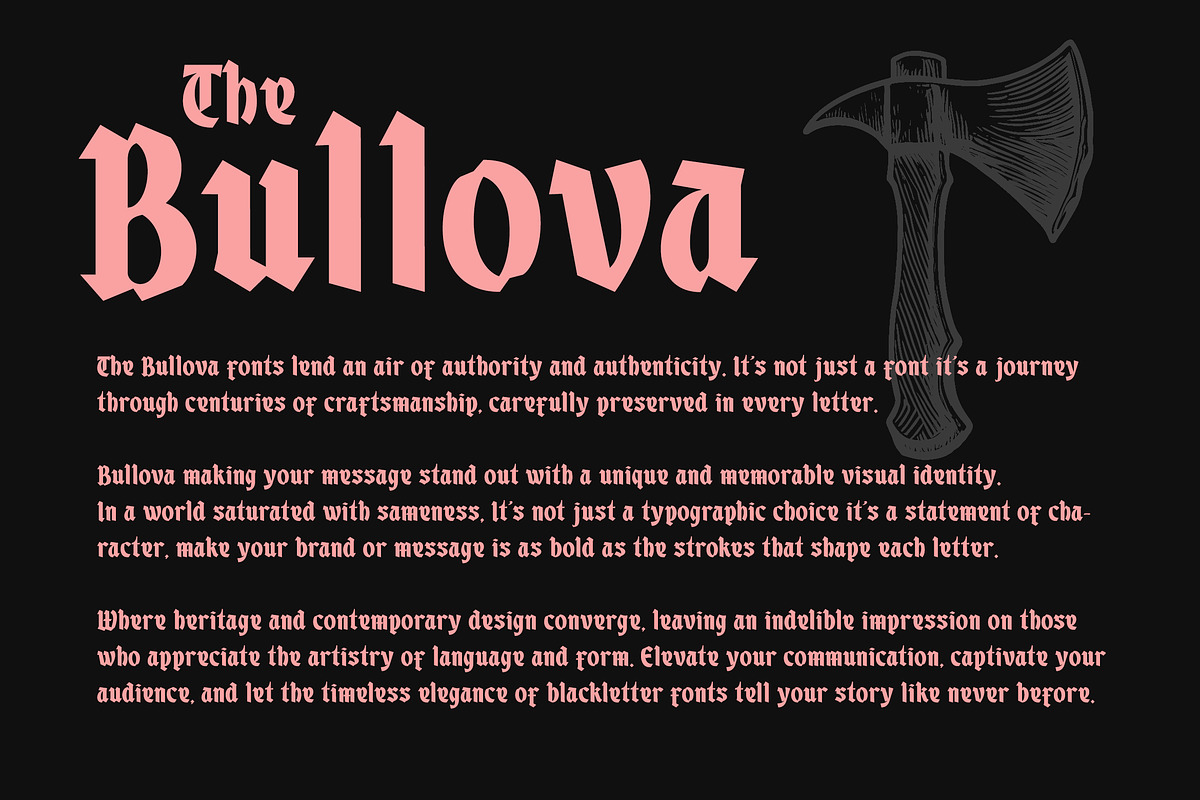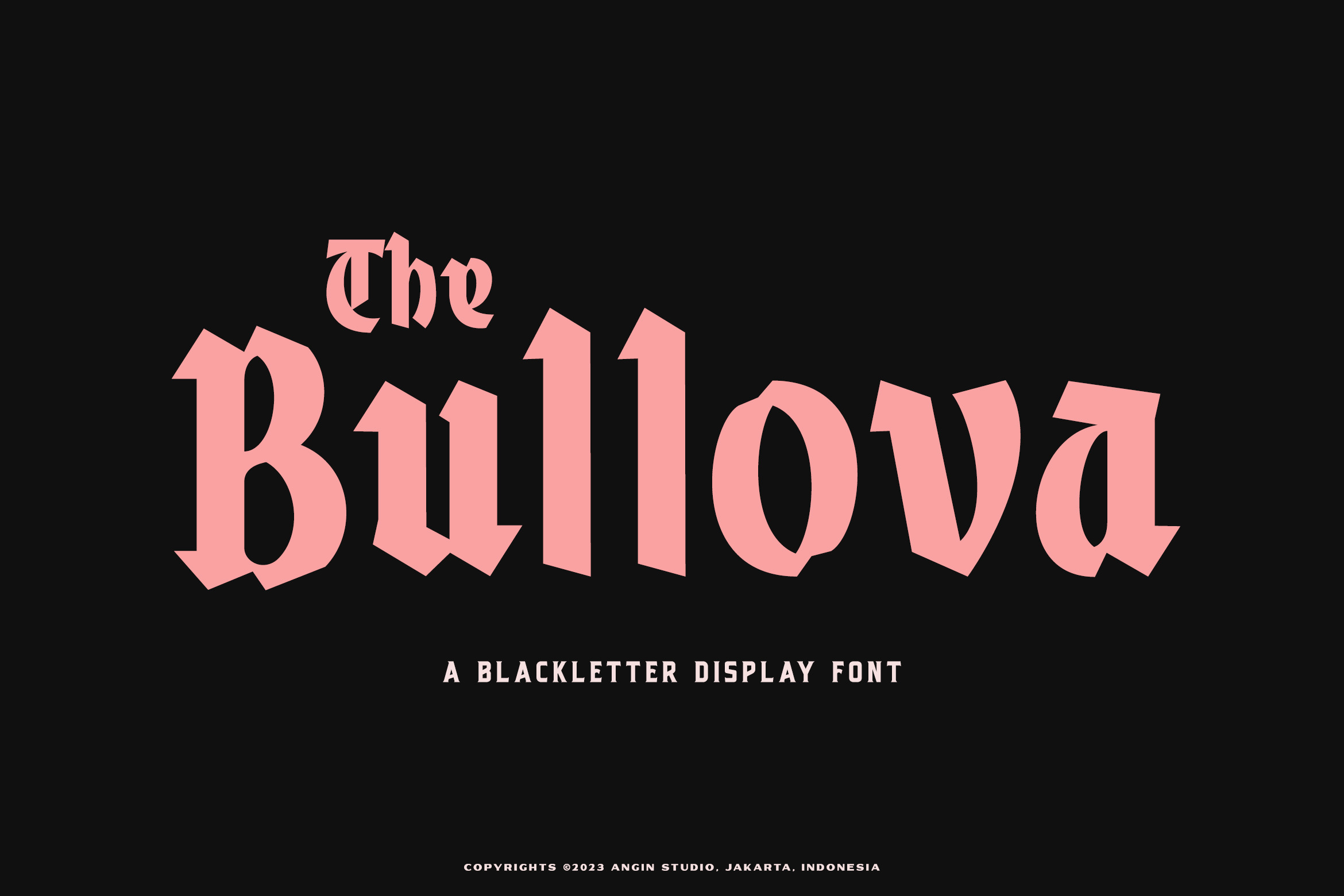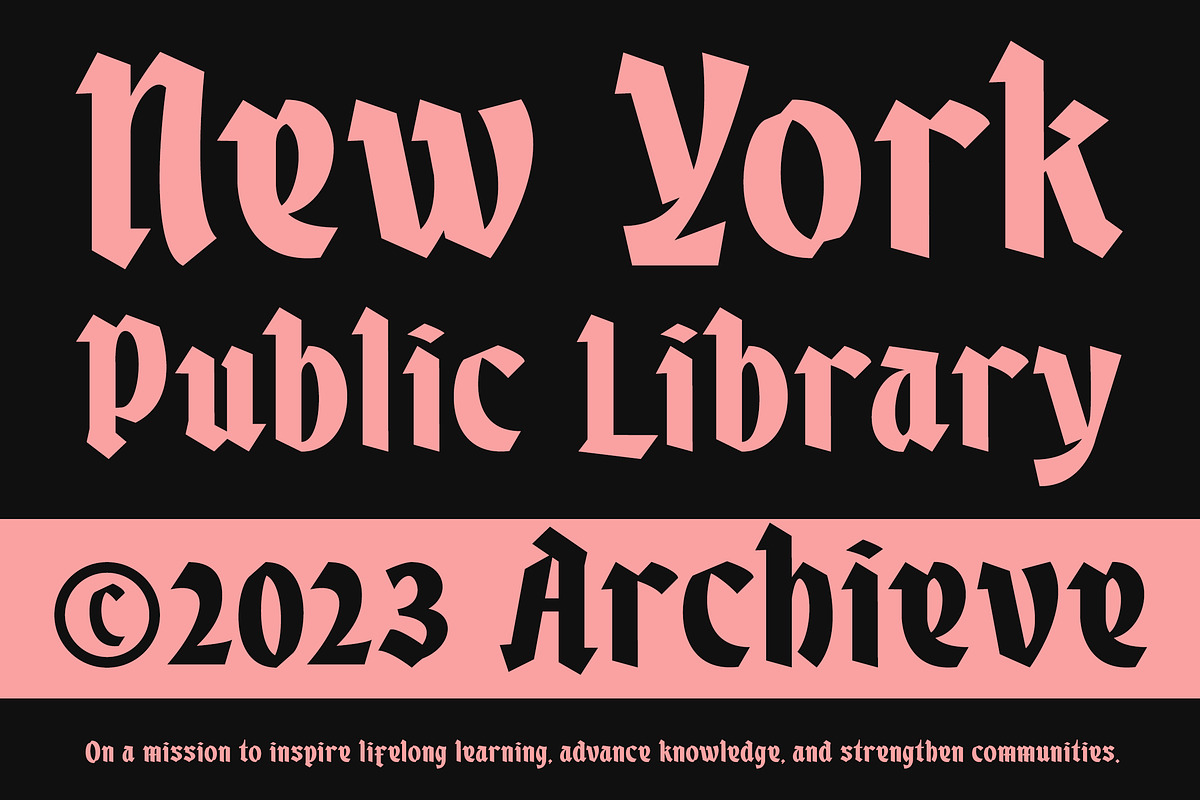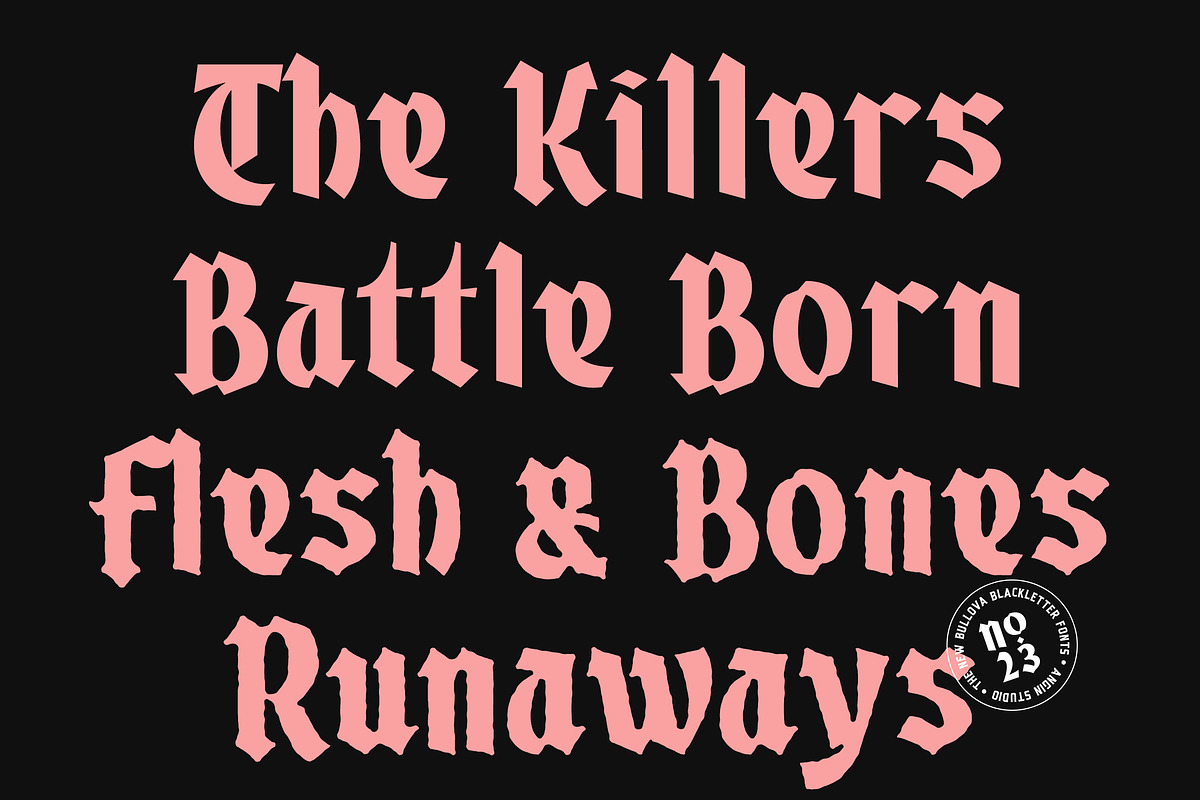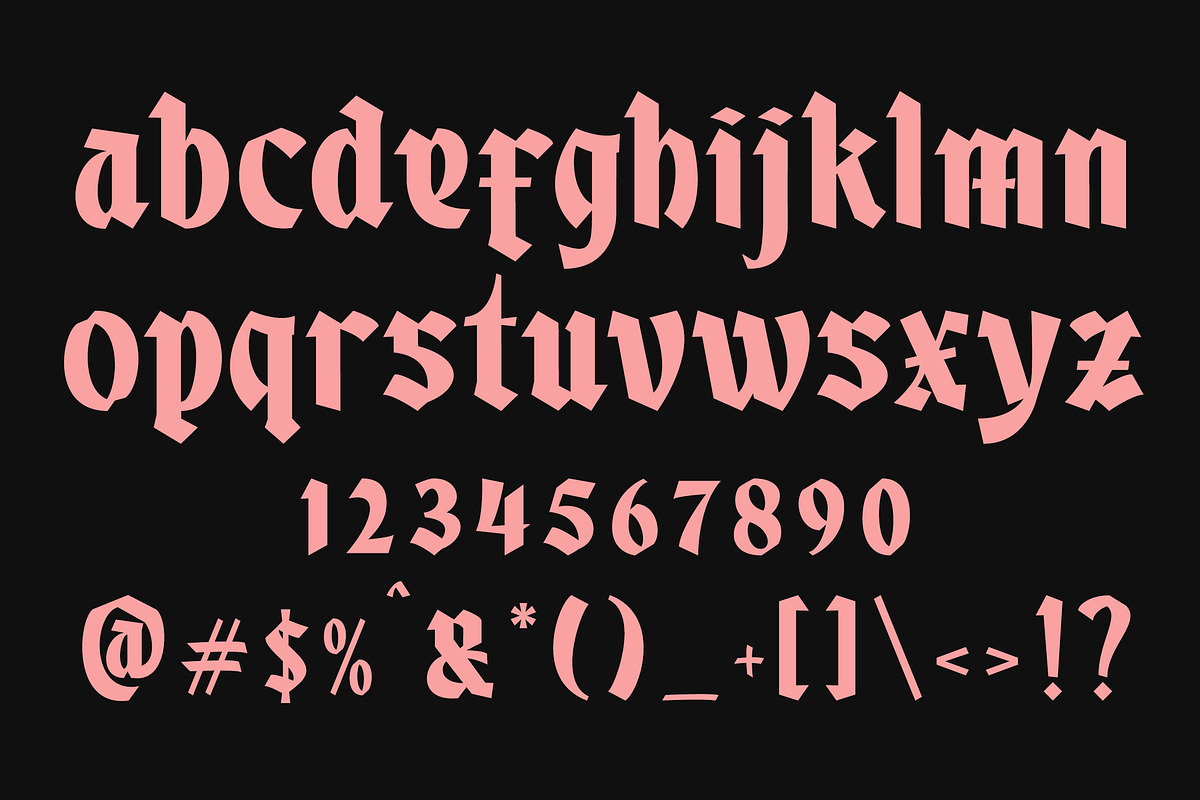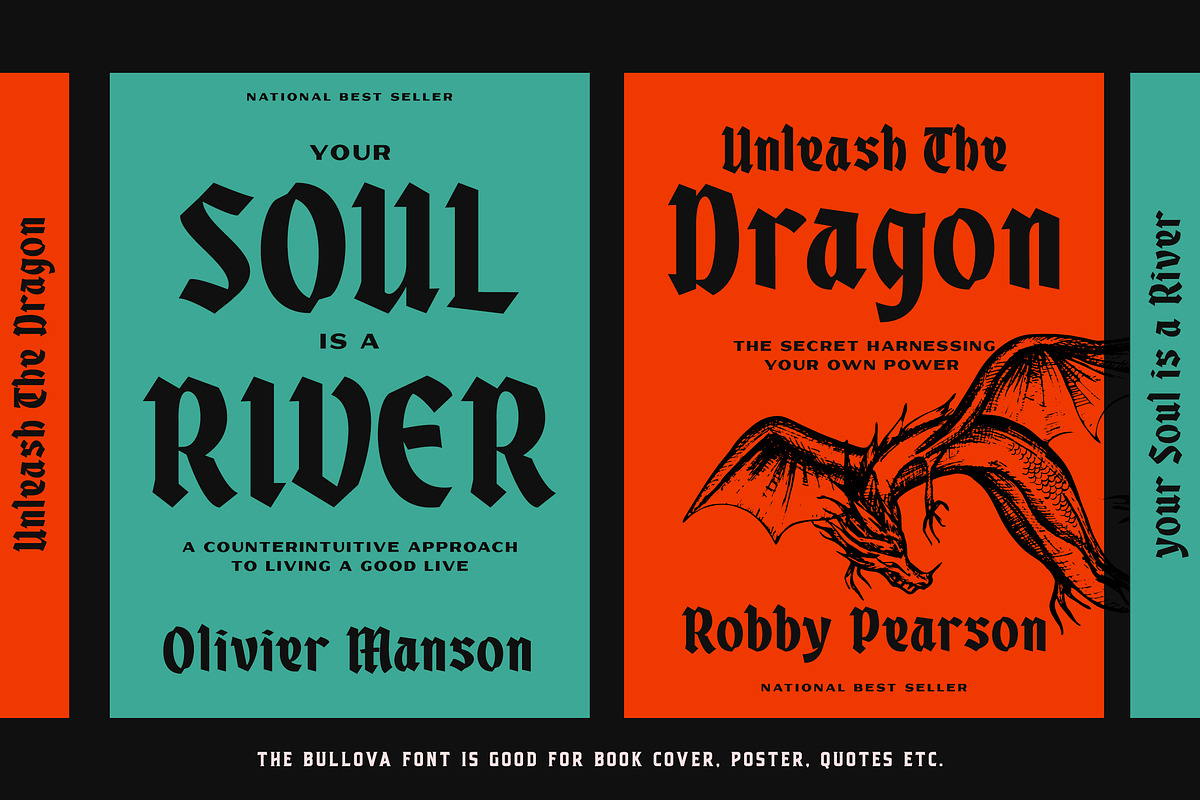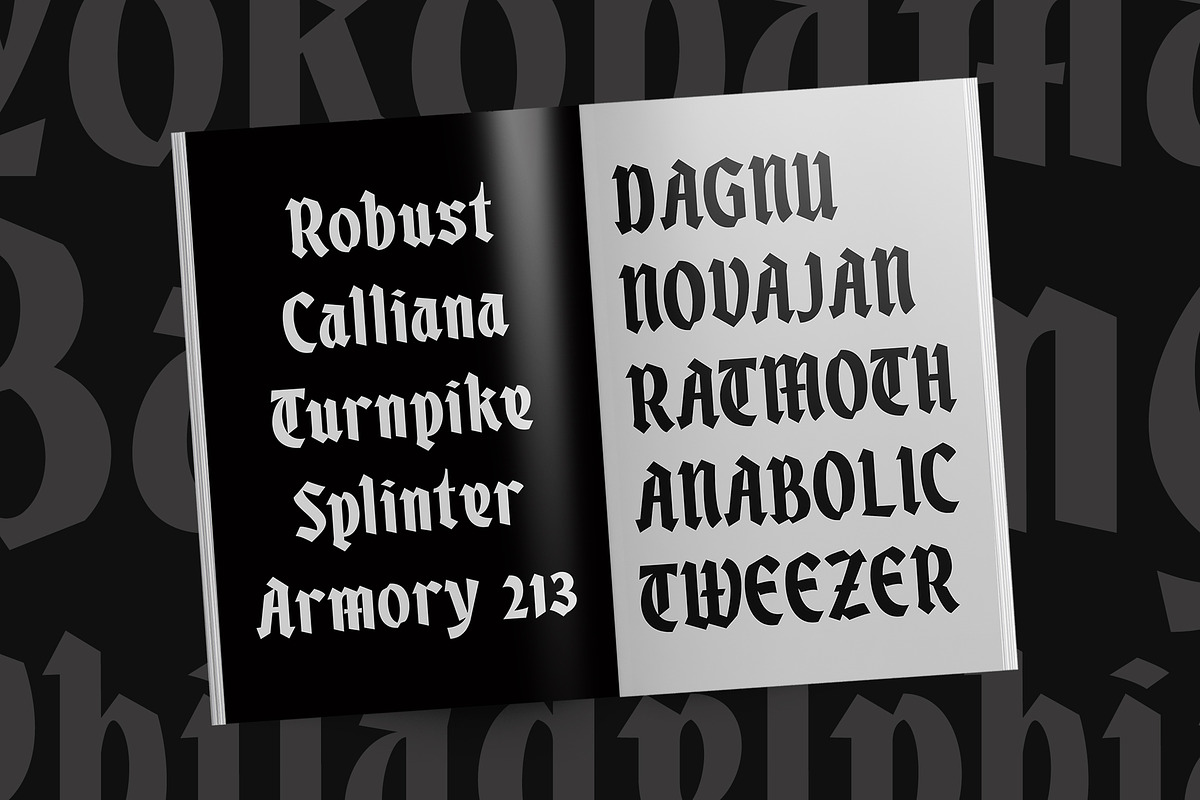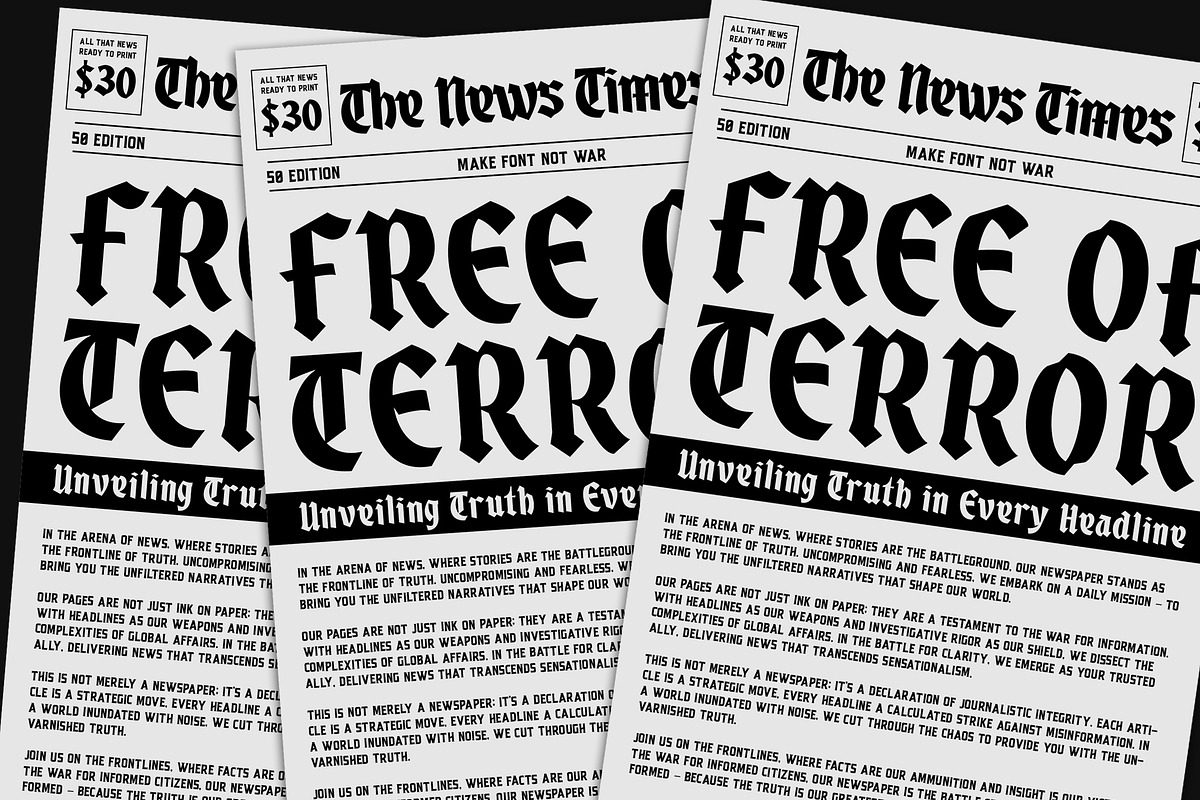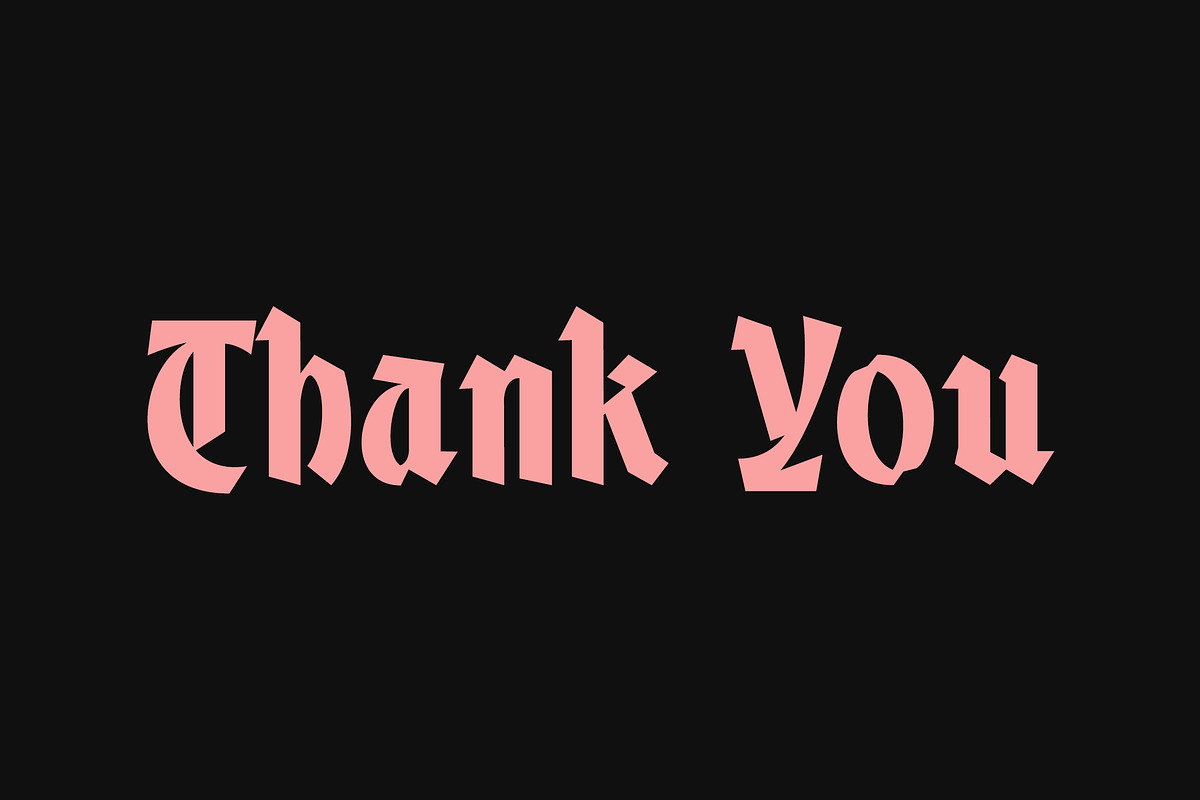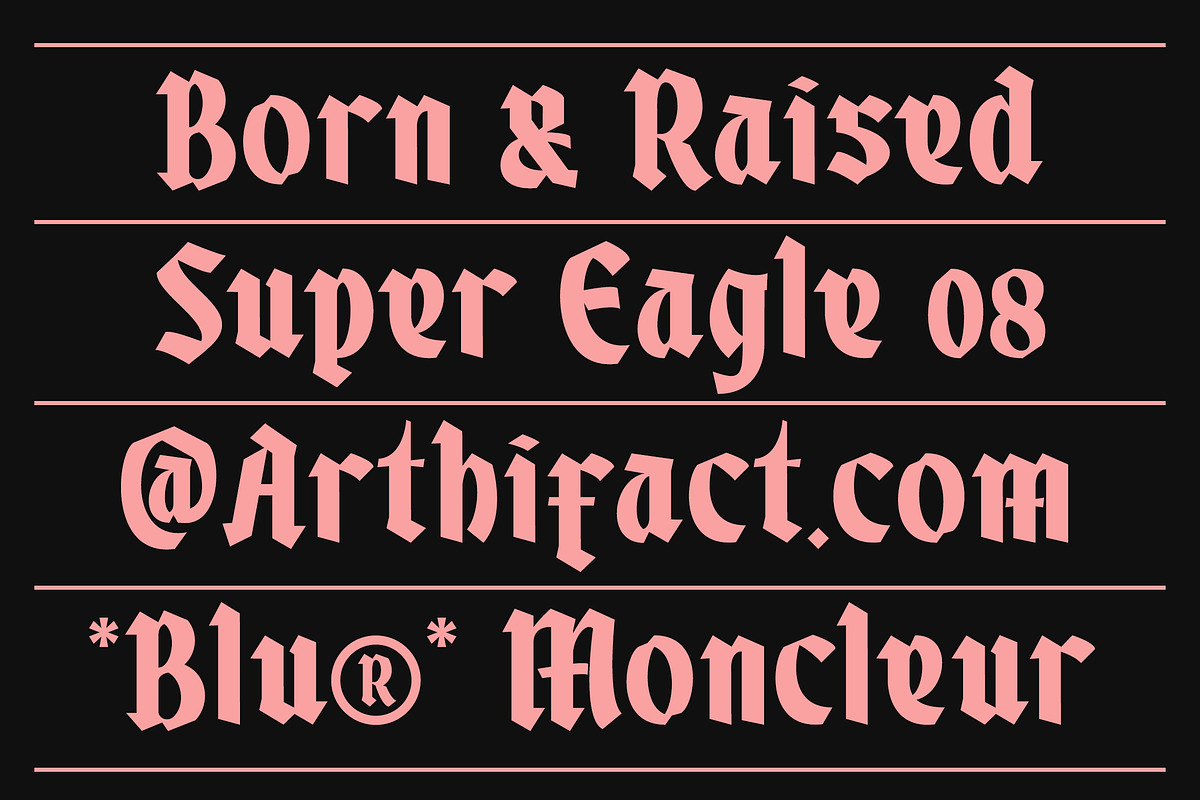
The Bullova Blackletter Fonts
The Bullova fonts were inspired by the Fraktur and Rotunda Blackletter manuscripts. Made with a modern impression, it still looks strong and catchy. Bullova is also supported by multilingual characters that can be used in several languages. The Bullova is very suitable for use in making posters, logos, tattoos, labels, packaging, and album covers.
Bullova comes in two styles:
- Bullova Regular
- Bullova Rough